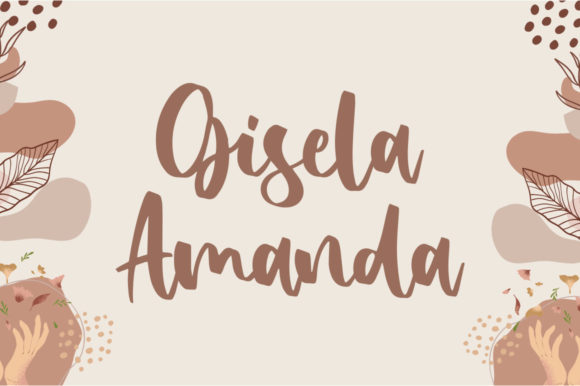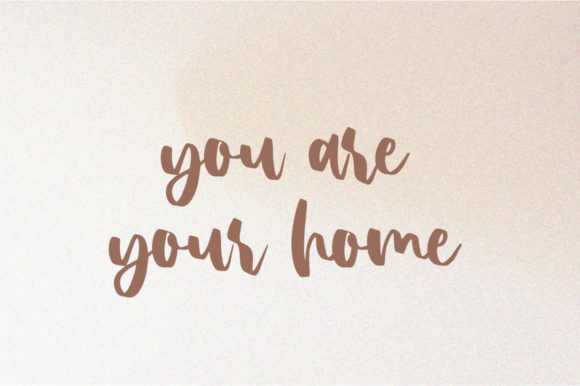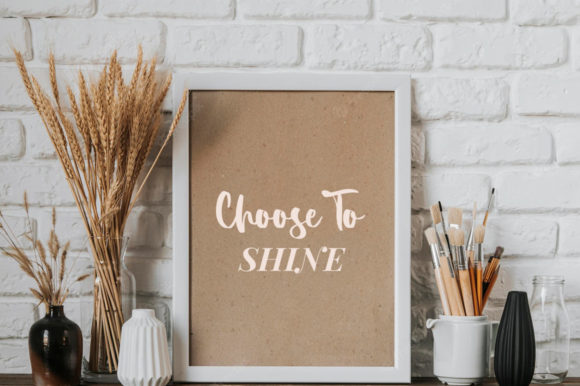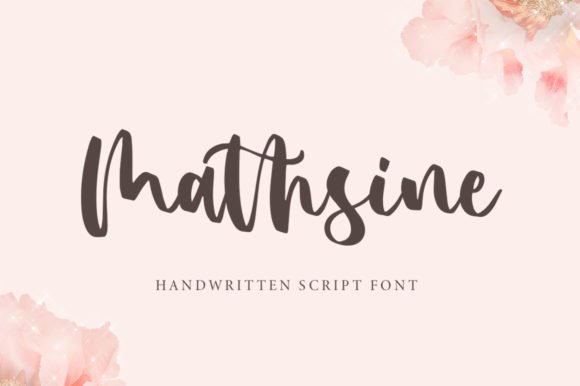
Introduction to Mathsine Font
Mathsine is a modern script font.
It features a cheery and delicate vibe that will instantly make your creations look out of this world Add it confidently to your favorite projects and let yourself be amazed by the outcome generated.
Mathsine Font offers exceptional quality and versatility, making it a valuable addition to your design toolkit. Whether you’re creating for personal projects or commercial use, Mathsine Font delivers professional results.